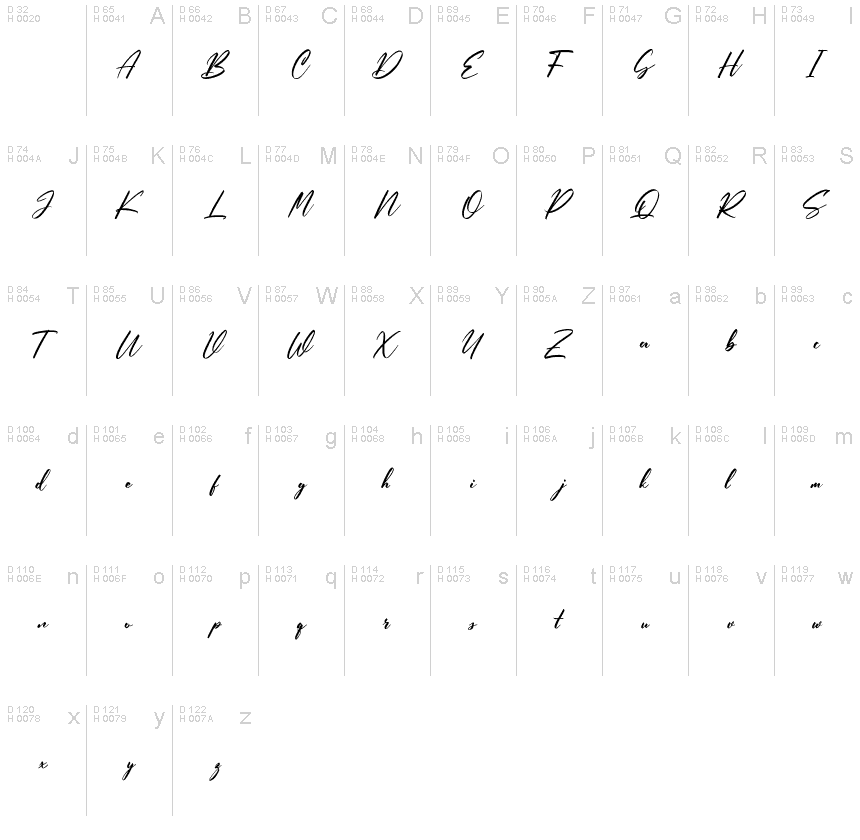
Oxydest Free Regular
Oxydest is a stunning handwritten signature font designed by Maulana Creative. With its semi-light weight, it exudes elegance and sophistication, perfect for high-end projects such as luxury branding or wedding invitations. Its flowing strokes and unique curves bring a personal touch to any design, adding a sense of artistry and creativity. Oxydest will elevate your designs to the next level with its charming style and versatile usage. Whether you're designing a logo or creating social media graphics, this font is sure to leave an impression on your audience.